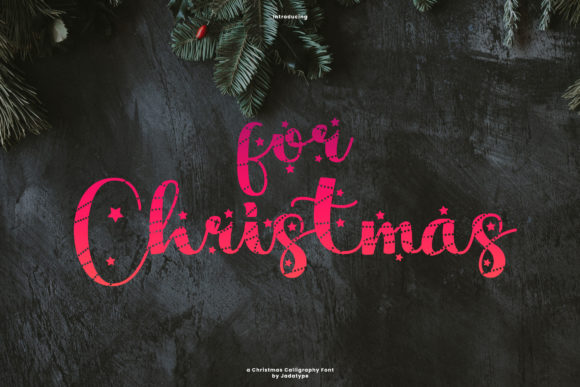
Step into the realm of festive cheer and creative expression with For Christmas, the script font family that transforms your designs into captivating works of art. Inspired by the joyous spirit of the holiday season, For Christmas is not just a font; it's an invitation to embark on a creative journey filled with warmth, nostalgia, and boundless imagination.
Crafted with meticulous attention to detail by the talented designers at Jadatype, For Christmas captures the essence of Christmas through its elegant curves, playful flourishes, and enchanting details. Each letter dances across the page like a snowflake, creating a visual symphony that evokes the magic and wonder of the season.
This versatile font family is perfectly suited for a wide range of Christmas-themed projects, from heartfelt greeting cards to eye-catching posters, and from personalized gift tags to festive social media posts. Its playful charm adds a touch of delight to invitations, while its sophisticated style elevates your branding and marketing materials, making them stand out from the crowd.
With For Christmas, the creative possibilities are endless. Let your imagination soar as you craft stunning designs that capture the spirit of the Christmas season. From heartwarming family photos to whimsical illustrations, For Christmas transforms ordinary words into captivating stories, bringing joy and cheer to all who behold them.
So, embrace the festive spirit and unleash your creativity with For Christmas. Let this enchanting font family guide you on a magical journey of design, where every project becomes a cherished memory and every creation a reflection of the love and joy that fills the air during the most wonderful time of the year.